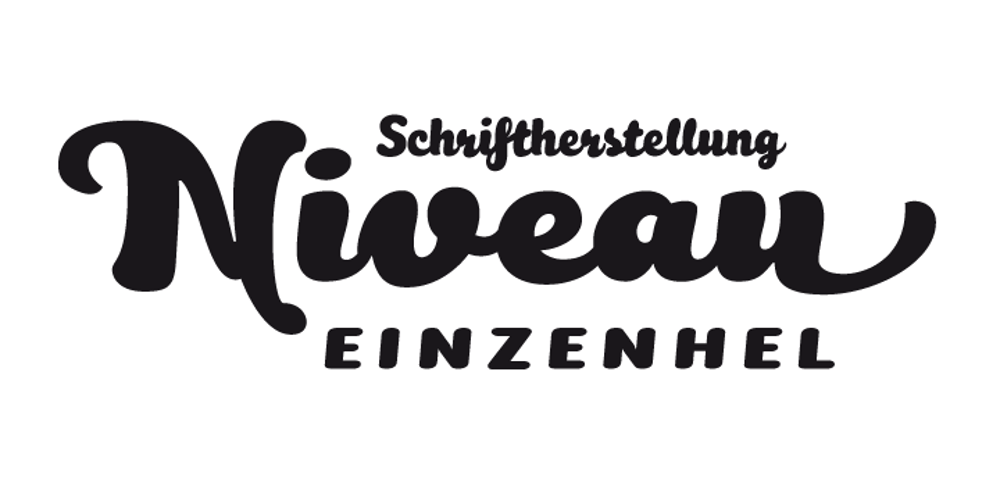
Melon Script
Melon Script font
Melon Script Font Family was designed by Olcar Alcaide and published by Eurotypo. Melon Script contains 4 styles and family package options. The melon (Cucumis melo) is an herbaceous plant monoecious trailing stems. It is known for its fruit, a berry summer season with a high water content and sweet taste. The Melon font, like the fruit in which has been inspired, is characterized by its organic shapes “soft” and heavy weight. Carefully traced and drawn by hand, offers the possibility to use linked or unlinked characters, and any combination of them, because the kerning pairs have been specifically regulated. Melon Script fonts are presented as family of four widths: Condensed, Regular, Expanded and Ultra-expanded. Each of them contains 623 glyphs, a full set of stylistic alternates, swashes, ligatures, ending letters, underlines and all diacritic signs support for Central European languages. We strongly recommend these fonts for use in packaging, web sites, advertising, magazines and logotypes. You may use these fonts when you must to generate visual impact with friendly seductive atmosphere and legibility.